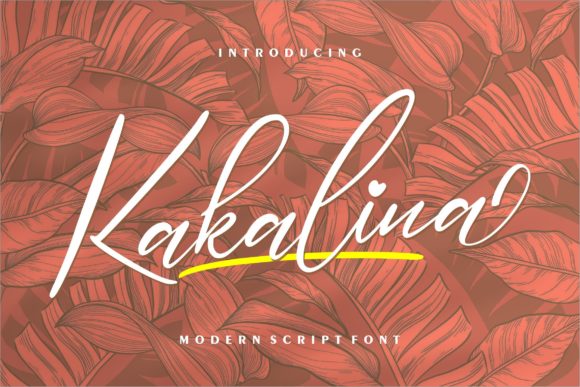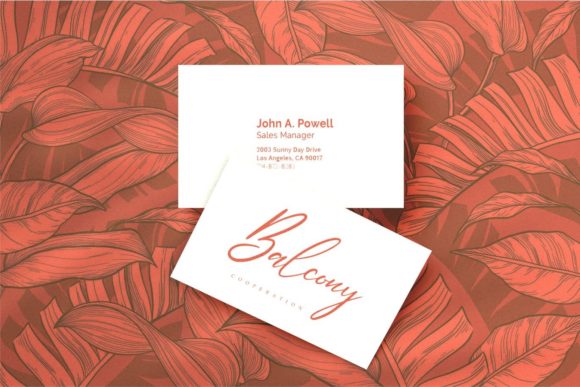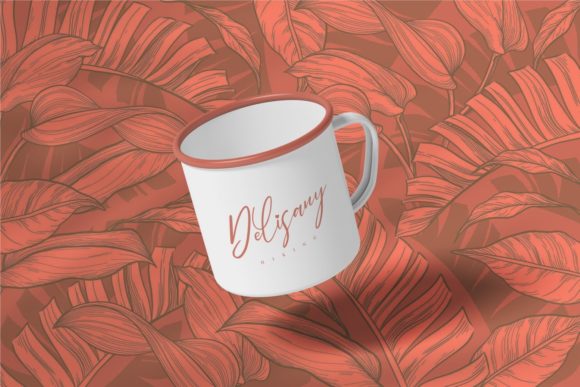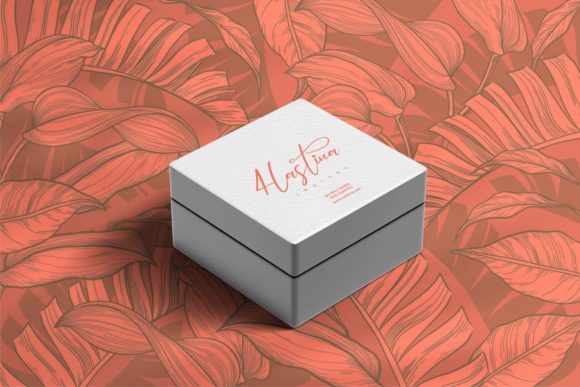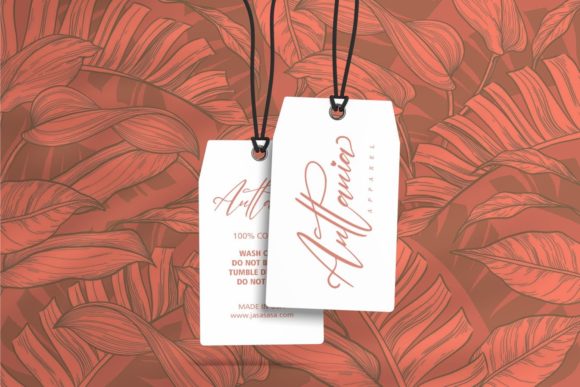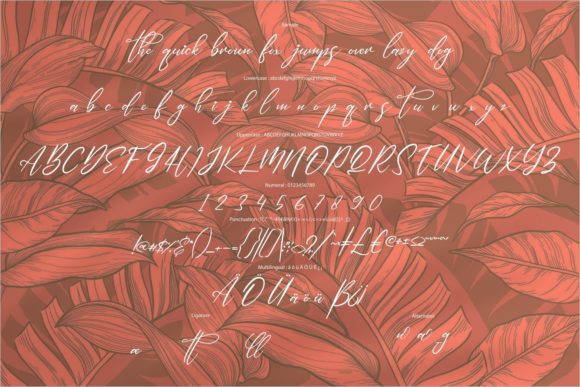
Kakalina Font
About Kakalina Font
Kakalina is a romantic and sweet calligraphy typeface with characters that dance along the baseline. It has a casual, yet elegant touch.